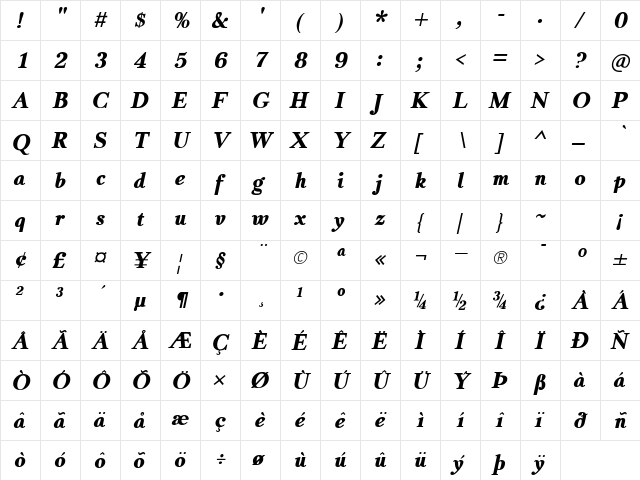
JasperSqueezeEB Italic Font Preview
JasperSqueezeEB Italic
Design Context for JasperSqueezeEB Typeface
JasperSqueezeEB is a composed and adaptable typeface that performs quietly and consistently across a wide range of design contexts. The dynamic lean of this cut emphasises speed and emphasis in any layout.